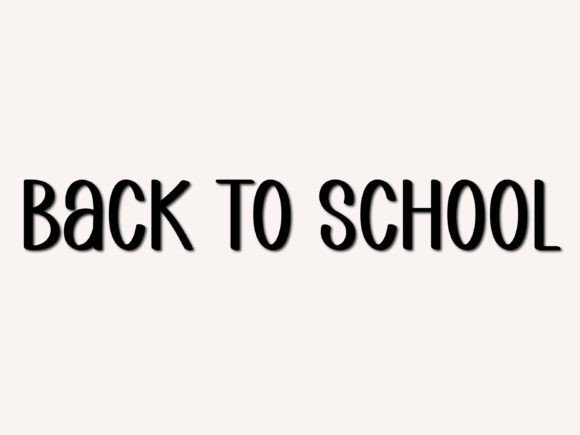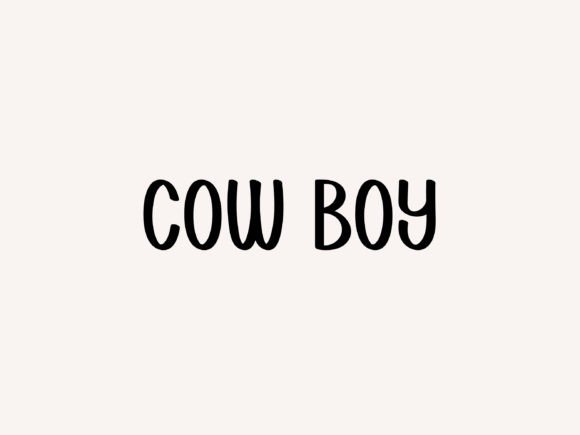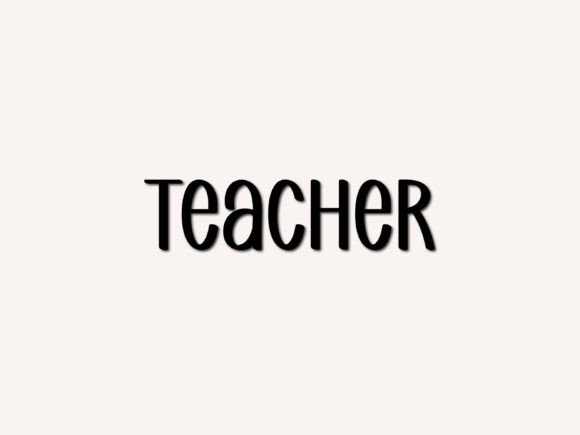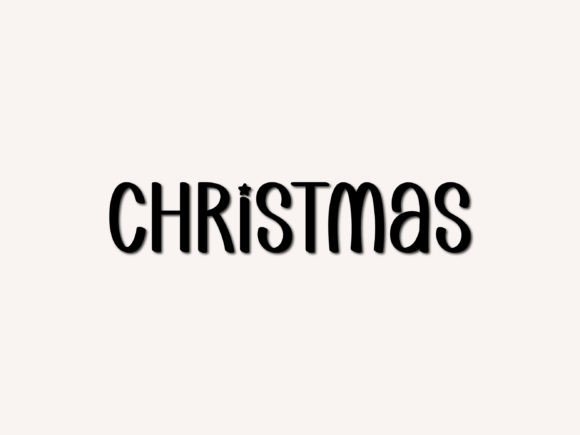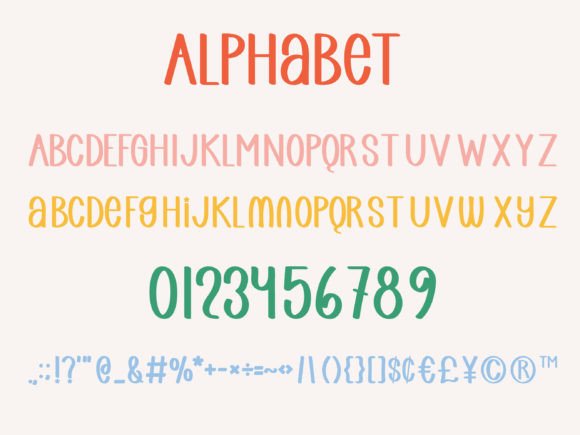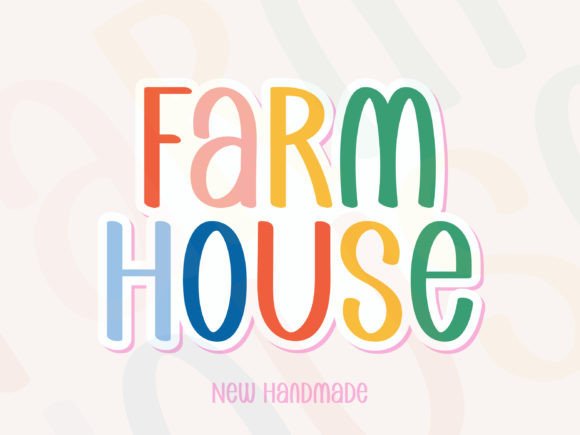
Introducing Farmhouse Font: The Perfect Addition to Your Design Toolkit
Are you looking for a font that can add a touch of warmth and coziness to your designs? Look no further than Farmhouse Font, a charming display font that features letters that look like they were written by hand. With its rustic style and homemade feel, Farmhouse Font is perfect for designers and crafters who want to add a personal touch to their work.
Farmhouse Font is a display font that is designed to resemble handwriting. The letters are carefully crafted to look like they were written with a pen or pencil, giving the font a warm and organic feel. The style is rustic and charming, making it perfect for a variety of design projects, from invitations and greeting cards to packaging and branding.
Characteristics of Farmhouse Font
So, what makes Farmhouse Font so special? Here are a few of its key characteristics:
• Handwritten look: Farmhouse Font features letters that look like they were written by hand, giving it a warm and personal feel.
• Rustic style: The font has a rustic, country feel that is perfect for designs that require a touch of warmth and coziness.
• Display font: Farmhouse Font is a display font, making it perfect for headlines, titles, and other large text elements.
• Versatile: The font is versatile and can be used for a variety of design projects, from invitations and greeting cards to packaging and branding.
Uses for Farmhouse Font
Farmhouse Font is a versatile font that can be used for a variety of design projects. Here are a few ideas to get you started:
• Invitations: Use Farmhouse Font to create beautiful, rustic invitations for weddings, parties, and other special events.
• Greeting cards: The font is perfect for creating handmade greeting cards that have a personal touch.
• Packaging: Add a touch of warmth and coziness to your packaging with Farmhouse Font.
• Branding: Use the font to create a unique and memorable brand identity for your business.
• Signs: Farmhouse Font is perfect for creating rustic signs for your home or business.
Why Choose Farmhouse Font?
So, why should you choose Farmhouse Font for your design projects? Here are a few reasons:
• Unique look: Farmhouse Font has a unique, handwritten look that will set your designs apart from the rest.
• High-quality: The font is high-quality and is designed to look great on any device.
Here are a few tips for using Farmhouse Font in your design projects:
• Use it sparingly: Farmhouse Font is a display font, so it’s best to use it sparingly. Use it for headlines and titles, and a simpler font for body text.
• Pair it with other fonts: Farmhouse Font looks great when paired with other fonts. Try pairing it with a simple sans-serif font for a contrasting look.
• Experiment with colors: Farmhouse Font looks great in a variety of colors. Try experimenting with different colors to find the one that works best for your design.
Farmhouse Font is a charming display font that is perfect for designers and crafters who want to add a touch of warmth and coziness to their designs. With its rustic style and handwritten look, Farmhouse Font is versatile and can be used for a variety of design projects. Whether you’re creating invitations, greeting cards, packaging, or branding, Farmhouse Font is a great choice. So why not give it a try and see the difference it can make in your designs?